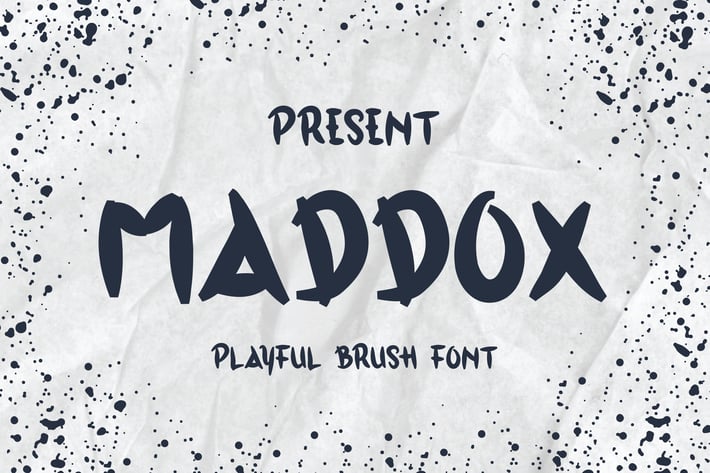
Maddox Typeface - A Playful Brush Font
So beautiful on invitation like greeting cards, branding materials, business cards, quotes, posters, and more!